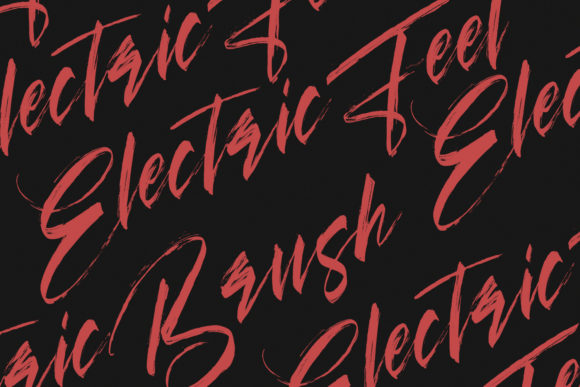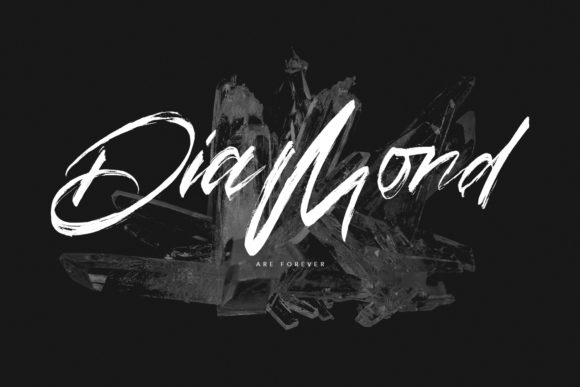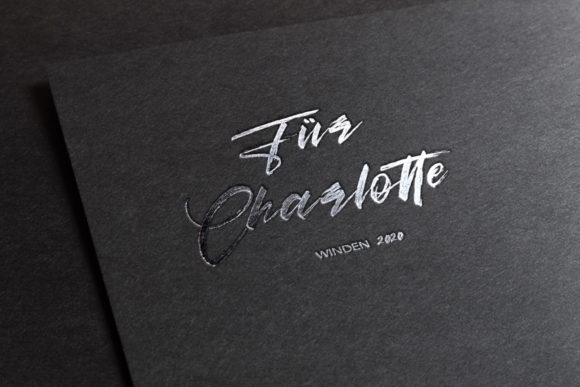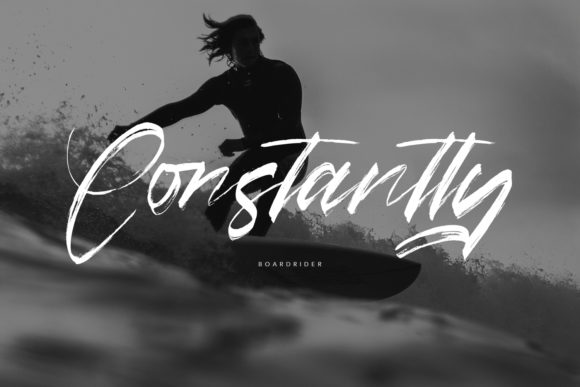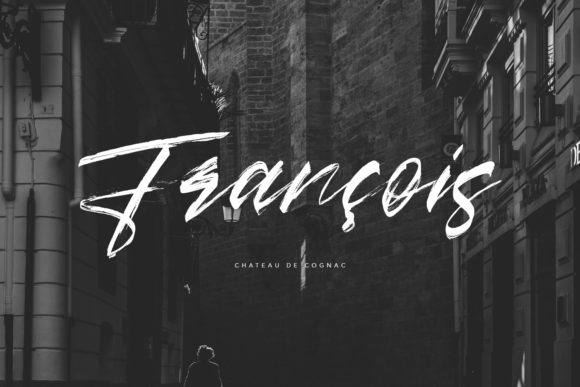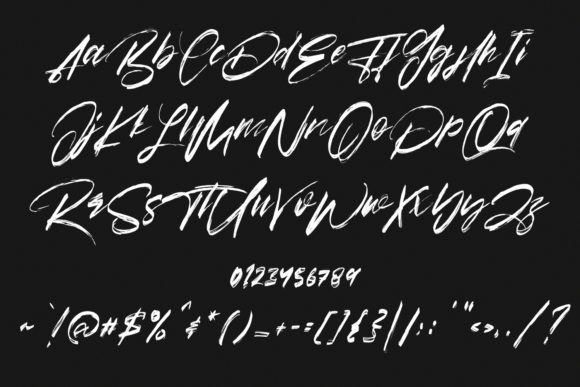
Introducing Arsitage Brush Font: Elevate Your Designs with a Touch of Elegance
Are you on the lookout for a font that can add a dash of sophistication and whimsy to your designs? Look no further than the Arsitage Brush Font. This stunning, flowing handwritten font was designed with the help of a brush pen, giving it a unique, organic feel that’s sure to capture the hearts of designers and crafters alike.
The Versatility of Arsitage Brush Font
One of the standout features of the Arsitage Brush Font is its incredible versatility. Whether you’re creating wedding invitations, stationary art, social media posts, or any other type of design, this font is sure to make it look gorgeous. Its elegant, cursive script is perfect for a wide range of applications, from formal events to more casual, creative projects.
What Makes Arsitage Brush Font So Special?
So, what sets the Arsitage Brush Font apart from other fonts on the market? Here are just a few things that make it truly special:
- Handwritten with love: Unlike some fonts that can look stiff or robotic, the Arsitage Brush Font was designed with a brush pen, giving it a warm, human touch.
- Flowing script: The font’s flowing script is perfect for creating beautiful, eye-catching text that’s sure to draw attention.
- Elegant and sophisticated: The Arsitage Brush Font has an undeniable air of elegance and sophistication, making it perfect for formal events and designs.
- Highly versatile: Whether you’re creating digital or print designs, the Arsitage Brush Font is sure to shine.
Ideas for Using Arsitage Brush Font
Now that we’ve covered what makes the Arsitage Brush Font so special, let’s talk about some ideas for using it. Here are a few suggestions to get you started:
- Wedding invitations: The Arsitage Brush Font is perfect for creating beautiful, elegant wedding invitations that will set the tone for your big day.
- Stationary art: Use the font to create stunning stationary art, including greeting cards, thank-you cards, and more.
- Social media posts: Add a touch of elegance to your social media posts with the Arsitage Brush Font. It’s perfect for creating eye-catching graphics and quotes.
- Branding and packaging: The font’s sophisticated style makes it perfect for use in branding and packaging design.
Tips for Getting the Most Out of Arsitage Brush Font
To really make the most of the Arsitage Brush Font, here are a few tips to keep in mind:
- Experiment with colors: The font looks great in a wide range of colors, so don’t be afraid to experiment and find the perfect hue for your design.
- Play with textures: Adding textures to your design can really make the Arsitage Brush Font pop.
- Mix and match: Don’t be afraid to mix and match the Arsitage Brush Font with other fonts and design elements to create a unique look.
In conclusion, the Arsitage Brush Font is a truly special font that’s sure to elevate your designs to the next level. Its elegant, flowing script and highly versatile style make it perfect for a wide range of applications, from wedding invitations to social media posts. Whether you’re a designer or crafter, this font is sure to become a favorite in your toolkit.